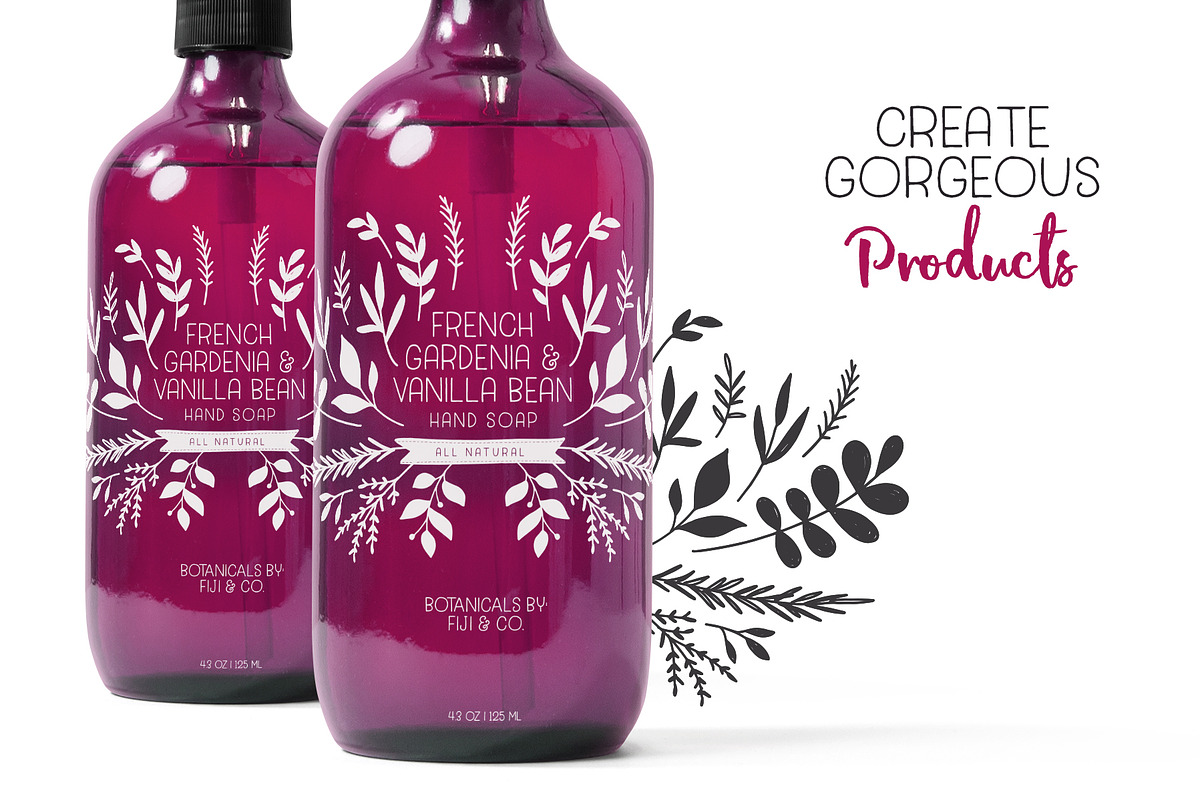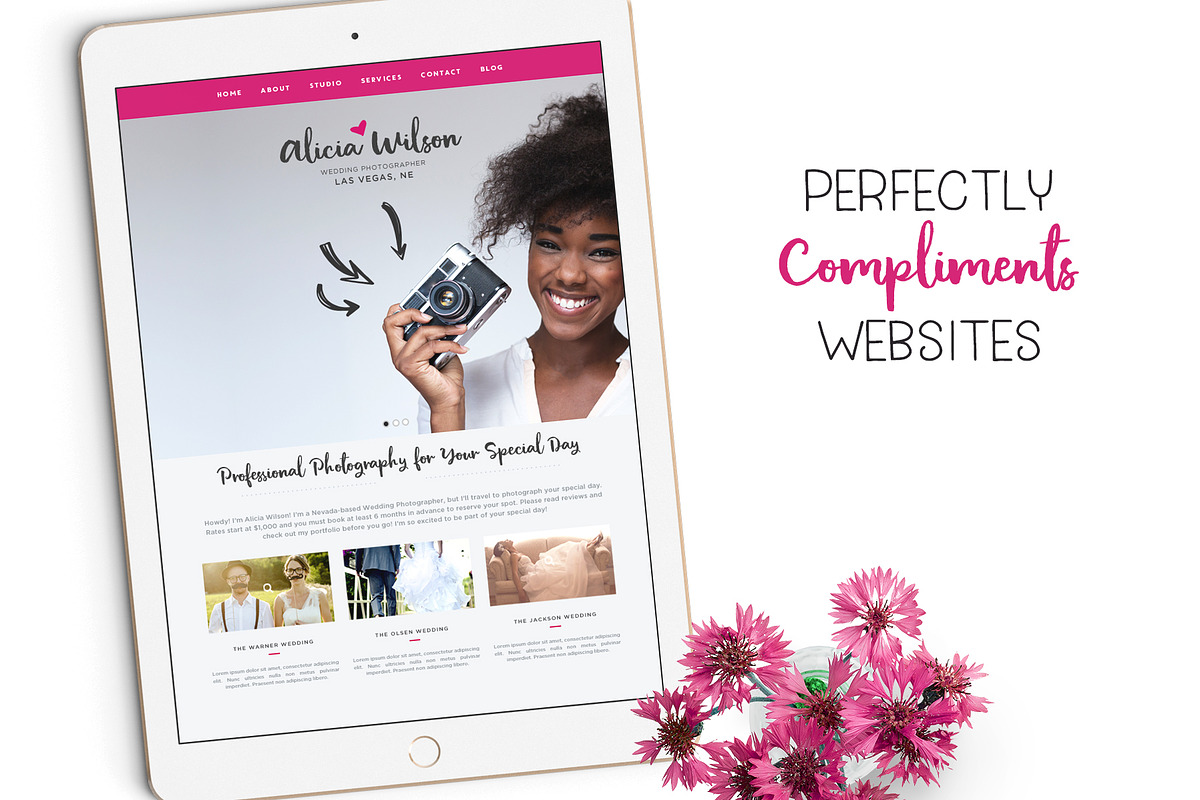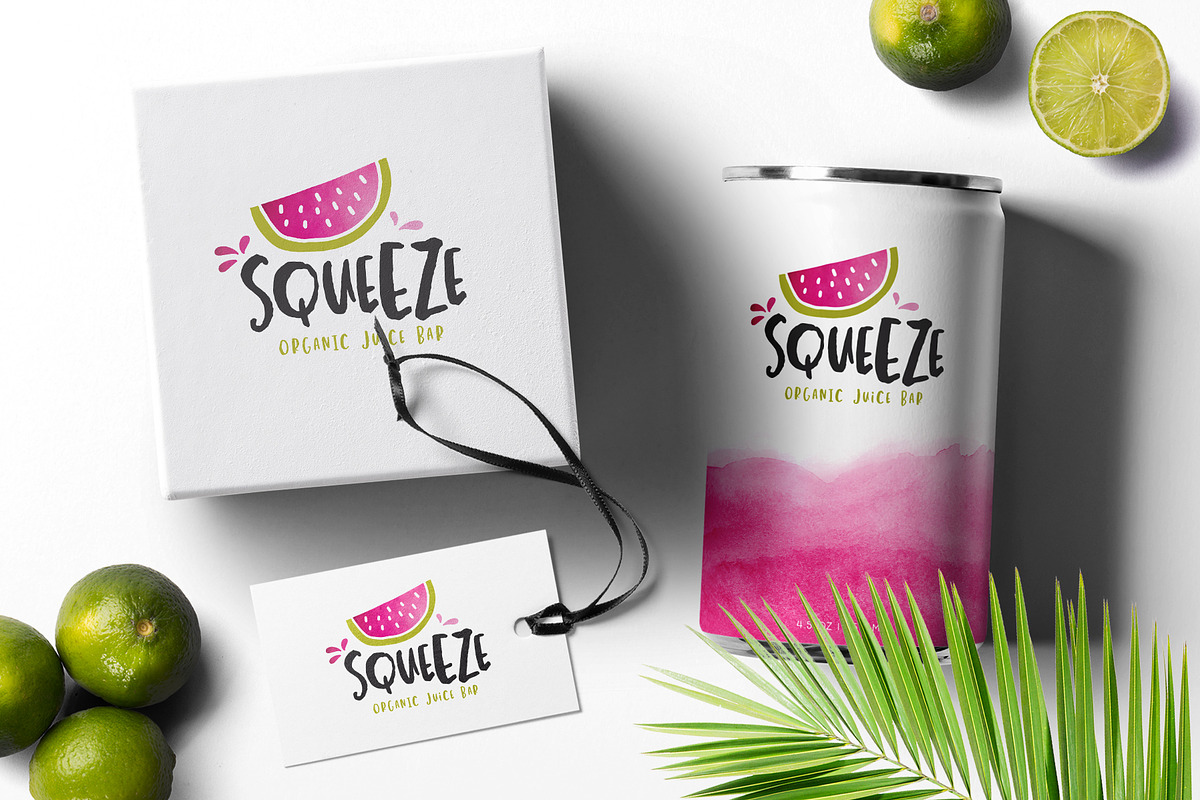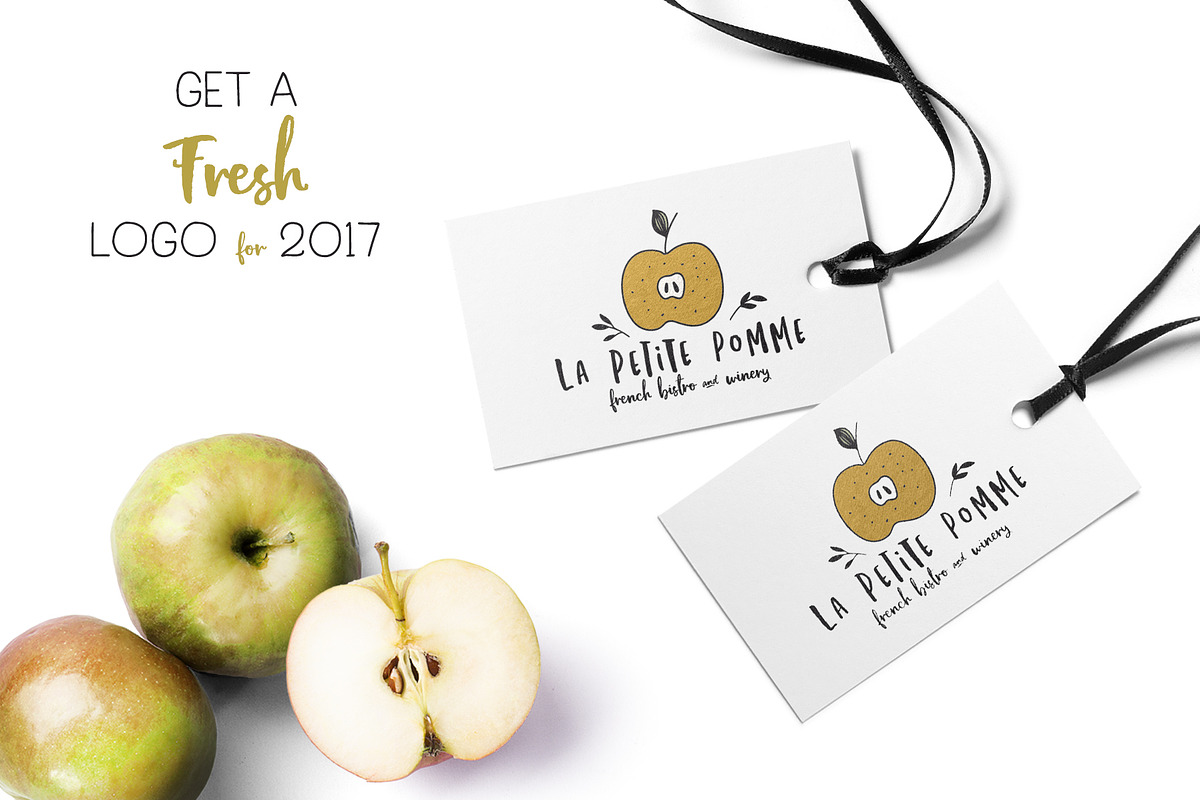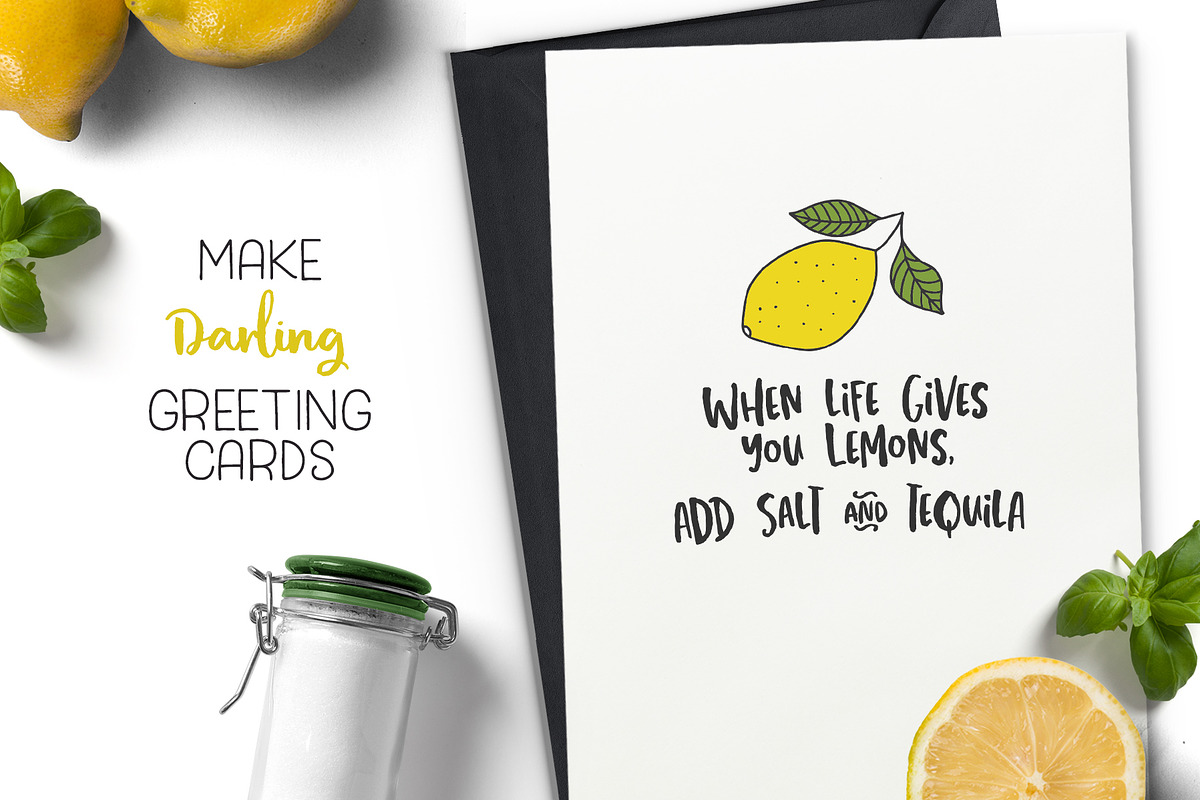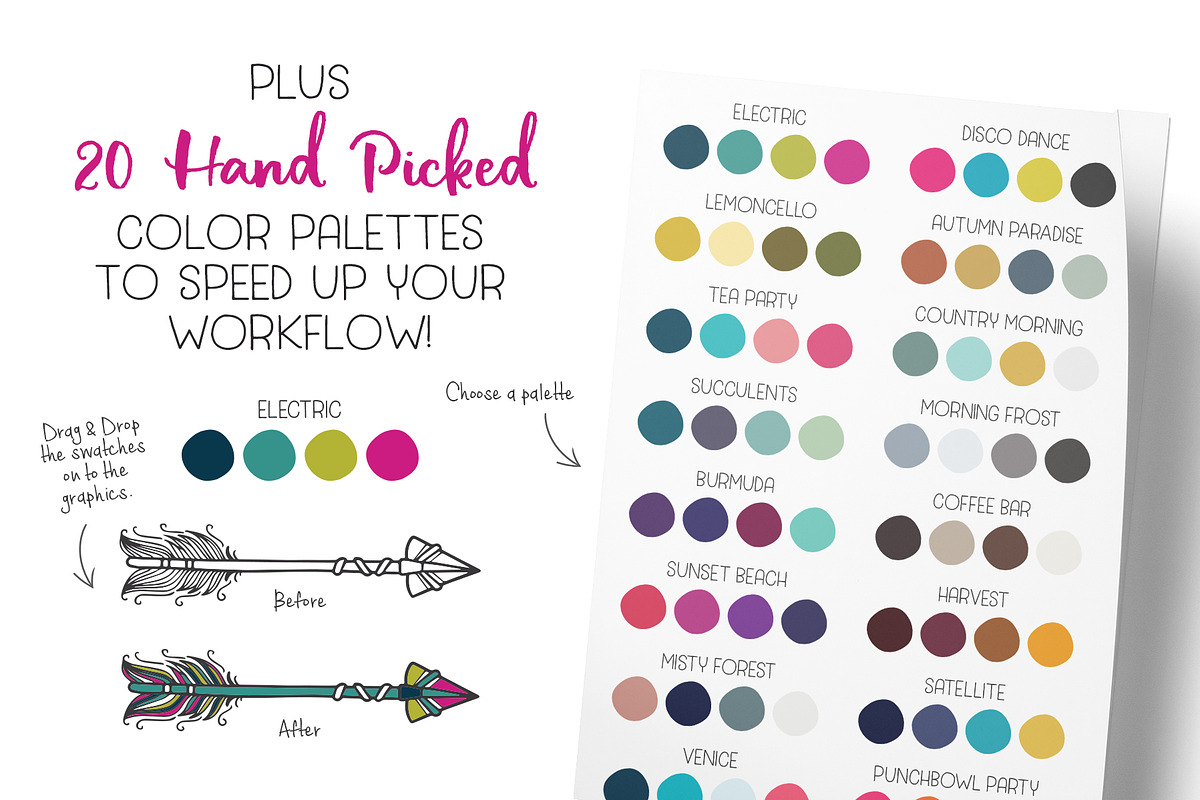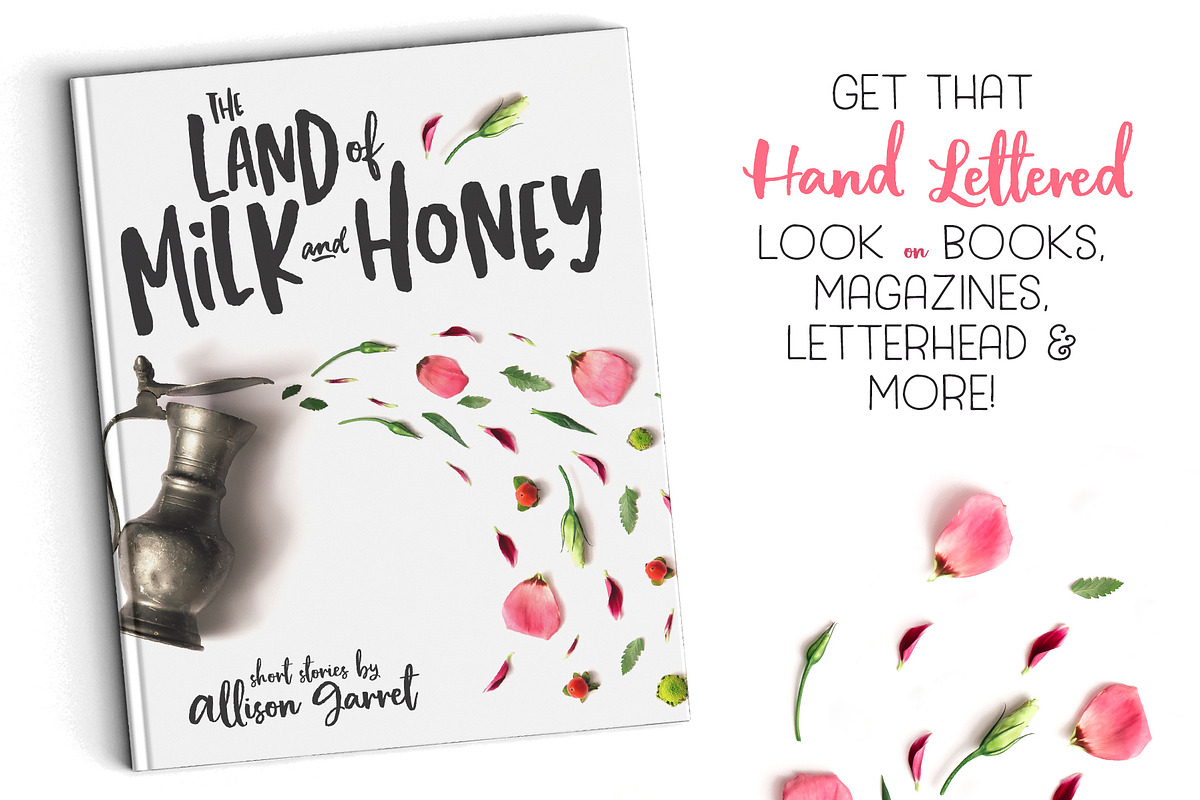
The Hand Illustrated TypeSet
Introducing the Universal Hand Illustrated TypeSet! This entirely vector-based pack is LOADED with hand-drawn, and hand-lettered awesomeness for your design arsenal. Why "Universal?" Because you can create everything from logos, to decorative packaging, to greeting cards and more with this single, streamlined kit. For reals, the sky's the limit with this baby. :)
About the fonts: The typeset trio was designed to compliment the graphic elements. They work beautifully in a set, but I encourage you to use them independently too! (See previews for ideas).